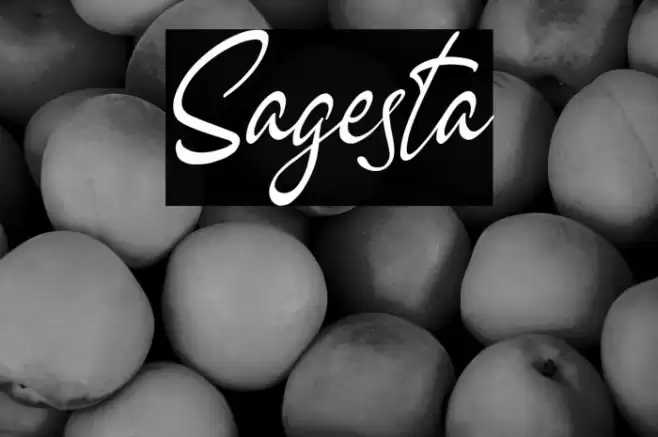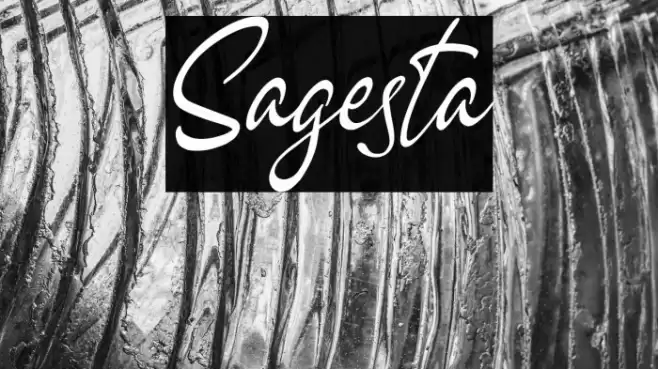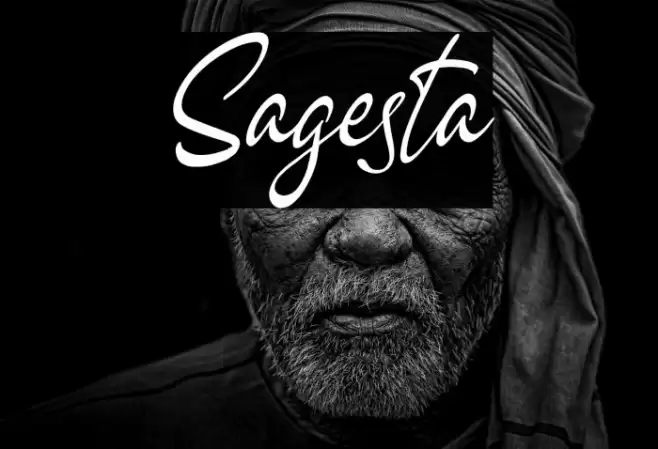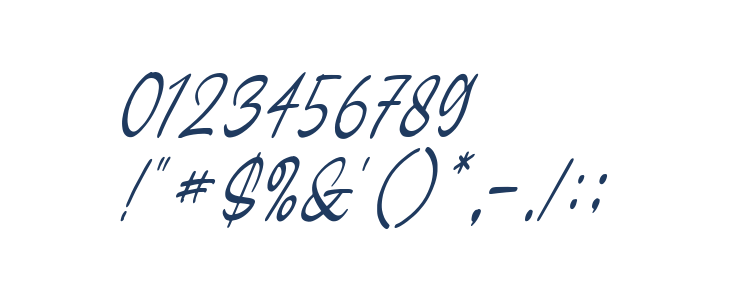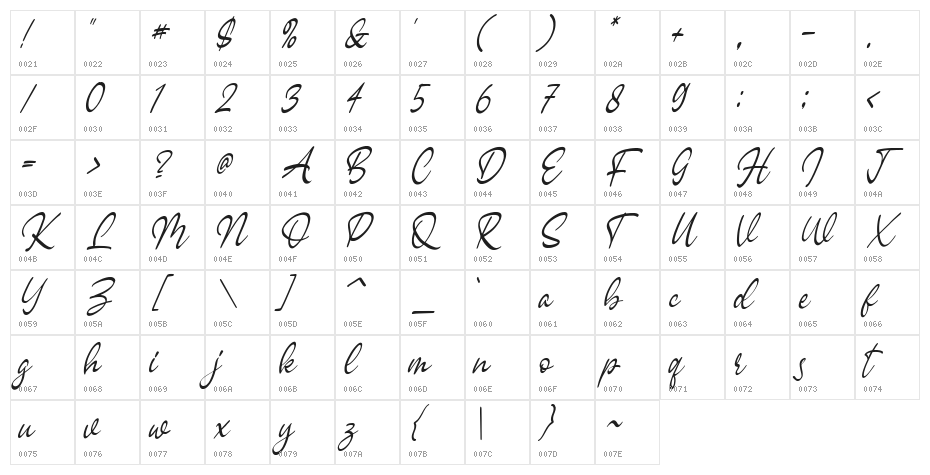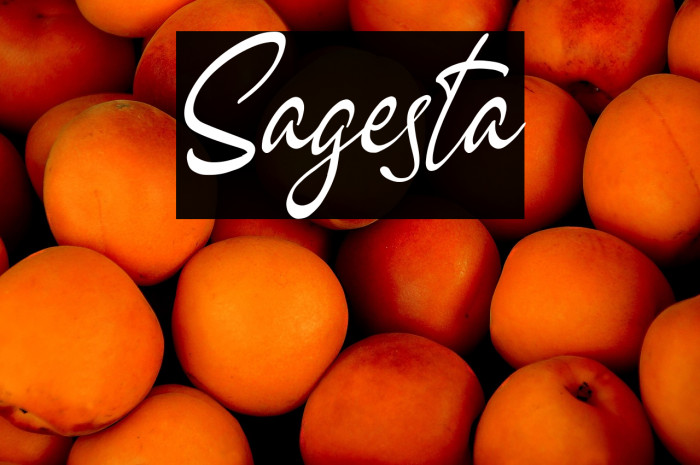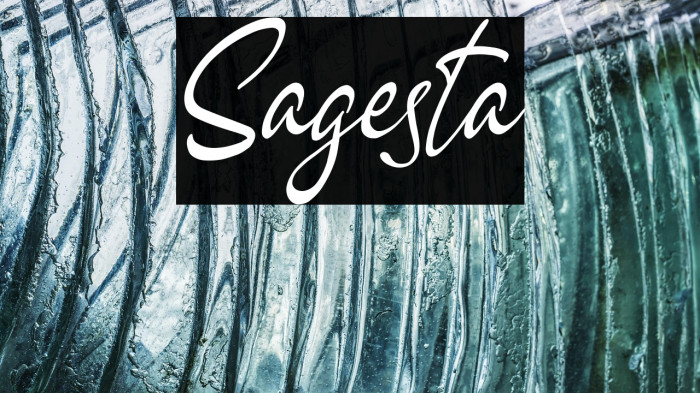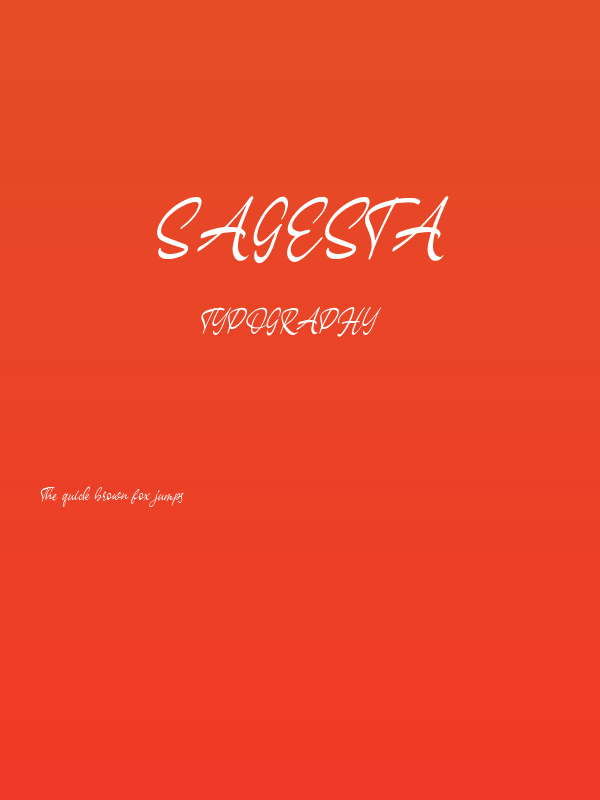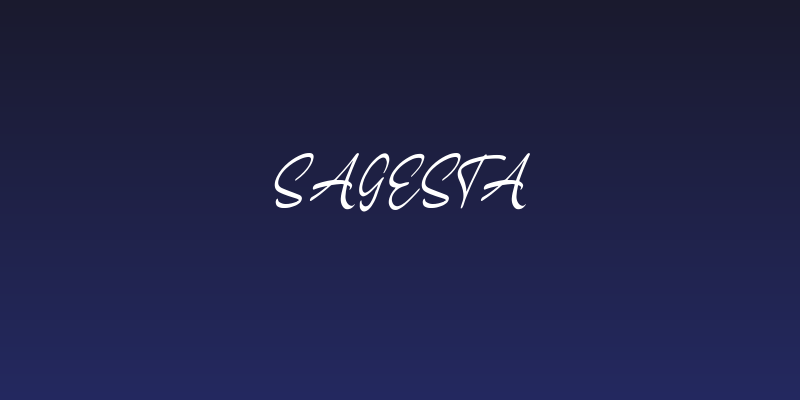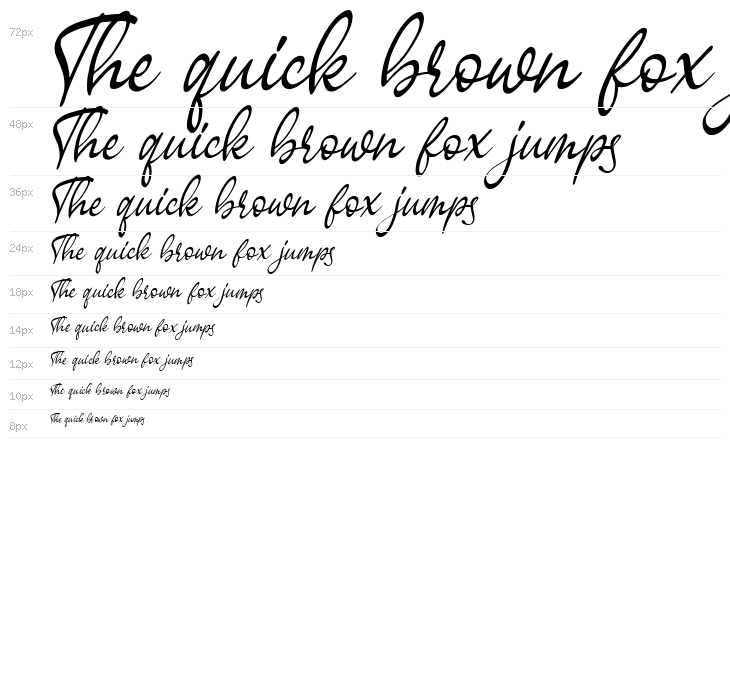
Sagesta Font
Sagesta Description
This font exudes a classic and elegant script style, characterized by its flowing, cursive letterforms. The uppercase letters are gracefully elongated, with smooth transitions and a consistent slant that adds to its sophisticated appearance. The lowercase letters maintain a harmonious flow, with rounded edges and a slight inclination, enhancing readability while preserving the font's decorative nature. The numerals are well-integrated, matching the overall cursive theme, and the special characters are thoughtfully designed to complement the alphabet. This font is ideal for projects that require a touch of elegance and formality, such as wedding invitations, formal event programs, or upscale branding materials.
A classic and elegant script font with flowing, cursive letterforms from Regular fonts.
- Proposed Projects: Ideal for wedding invitations, formal event programs, and upscale branding materials.
- Overall Style: Classic